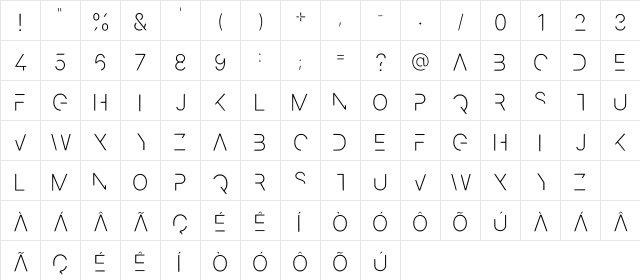
Modrnt_urban Regular Free Font
Modrnt_urban Regular
Design Context for Modrnt_urban
Modrnt_urban is a composed and adaptable typeface that performs quietly and consistently across a wide range of design contexts.